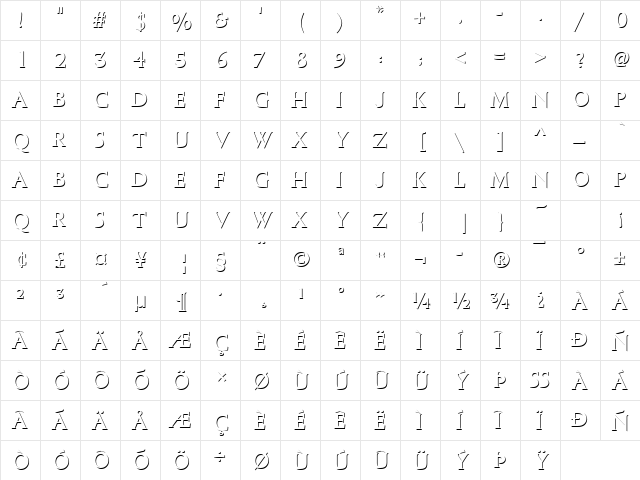
ColumnaOnlShaD Regular
Design Context for ColumnaOnlShaD Typeface
ColumnaOnlShaD is a composed and adaptable typeface that performs quietly and consistently across a wide range of design contexts.
Pro Tip: Use ColumnaOnlShaD in both headline and body roles to test its range before committing to a single application.